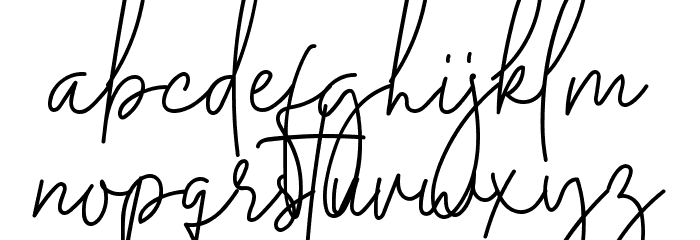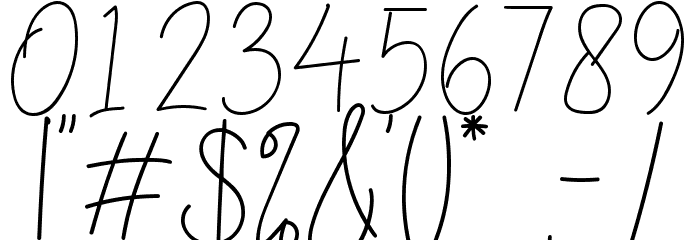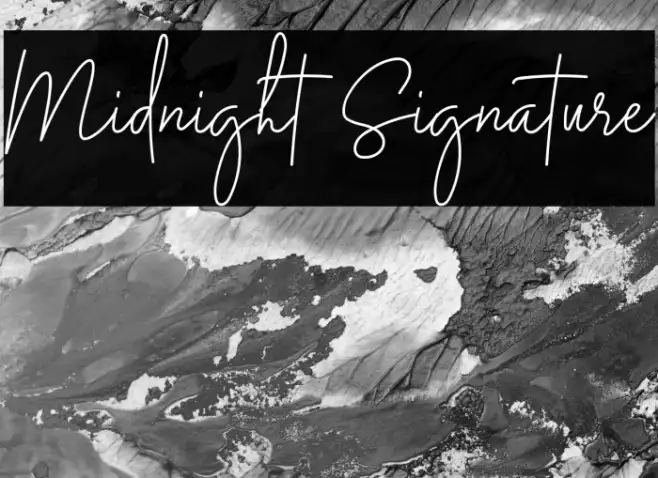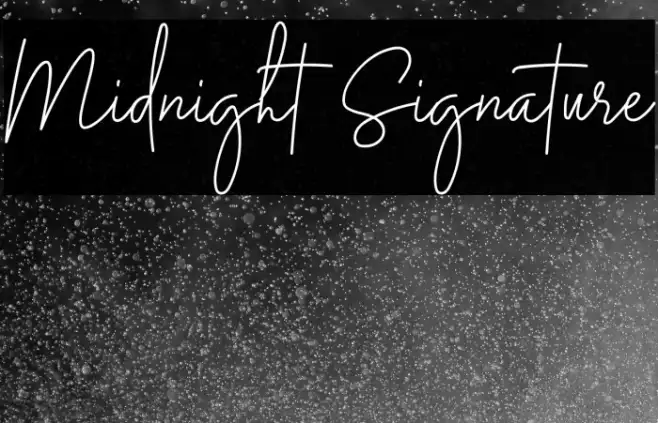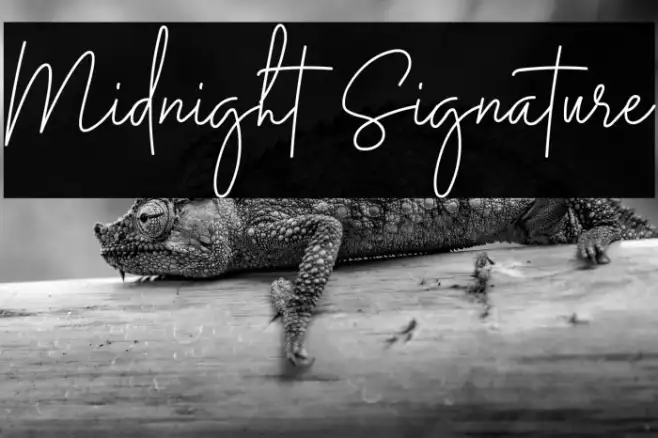
Midnight Signature Font
This font features an elegant, flowing script style that mimics the fluidity of natural handwriting. The uppercase letters are tall and slender, with graceful loops and curves that give a sense of sophistication and charm. The lowercase letters maintain a consistent flow, with smooth connections between characters, enhancing the handwritten feel. The numerals are distinct yet harmonize well with the overall script style, maintaining the same fluidity and elegance. Special characters are thoughtfully designed to match the aesthetic, ensuring a cohesive look across all text elements. This font exudes a sense of personal touch and elegance, making it ideal for projects that require a handwritten or signature-like appearance.
An elegant, flowing script font with a natural handwritten style.
- Font: Midnight Signature
- Proposed Projects: Ideal for wedding invitations, personal branding, signature logos, and elegant stationery.
- Category: Script
- Overall Style: Elegant, Handwritten
- Use Case: Logos, Invitations, Personal Branding